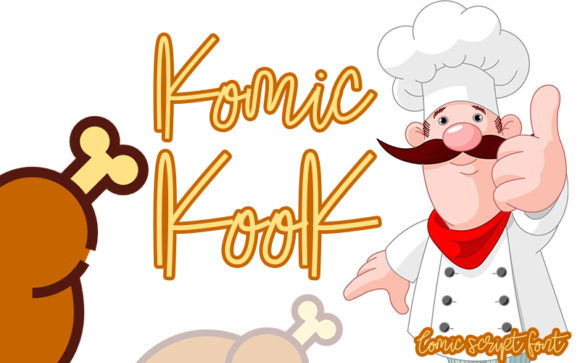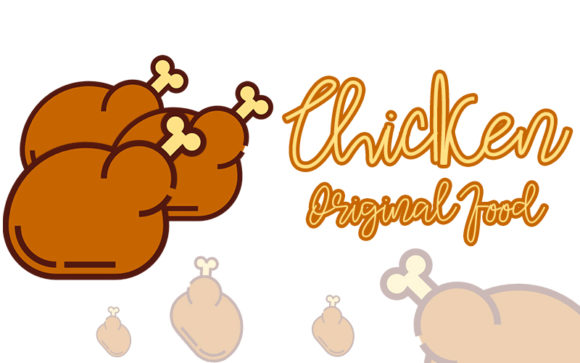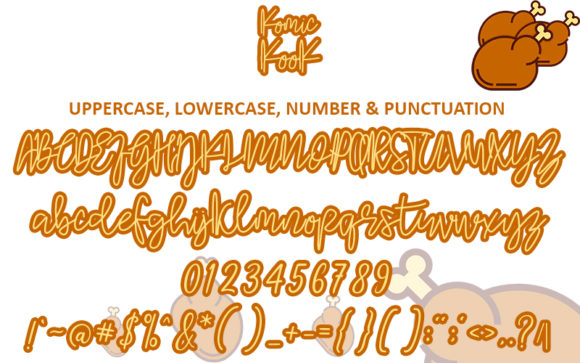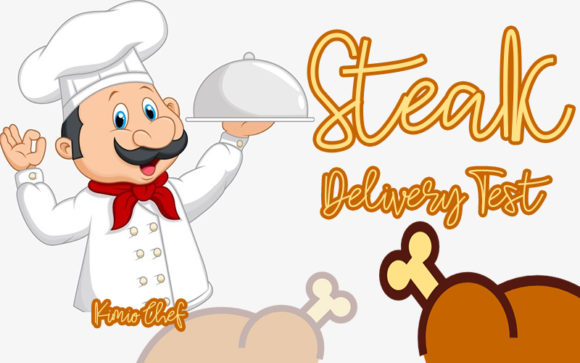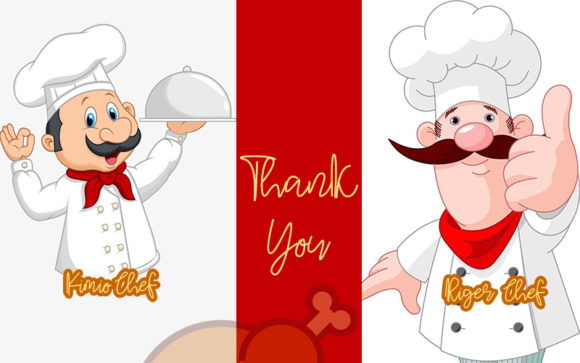
Komic Kook Font
Komic Kook is a modern handwritten font carefully created with a touch of elegance. This is a beautiful combination of timeless elegance and authentic calligraphy.